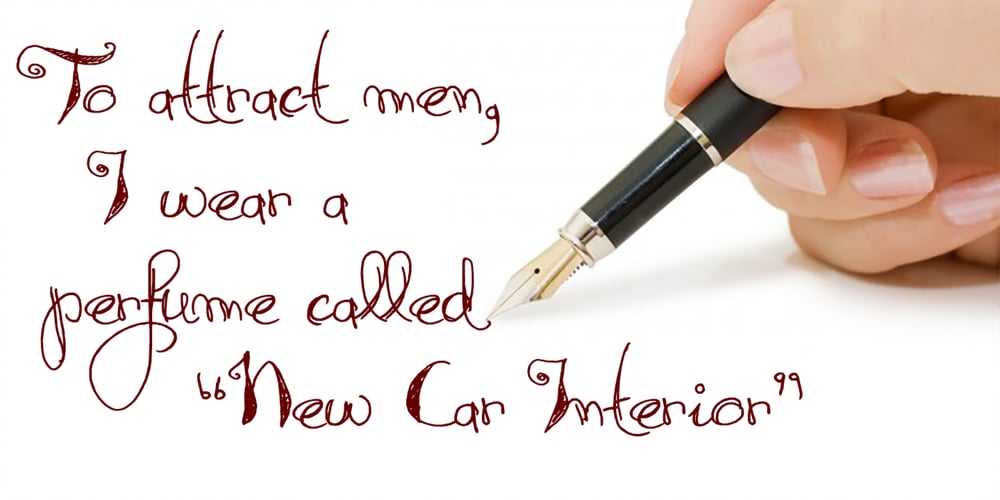
Syphon Spritz Pro Font Family was designed by Roger S. Nelsson, David Kerkhoff and published by CheapProFonts. Syphon Spritz Pro contains 1 styles and family package options. A free flowing and loose handwritten style, with the occasional double lines – and with quite elaborate and decorative initials. Feminine, but sloppy – an interesting combination. I have regularized the stroke thicknesses and modified a couple of the letterforms to make them less ambiguous. Some kerning and spacing completes the workover, together with our extensive language support. ALL fonts from CheapProFonts have very extensive language support: They contain some unusual diacritic letters (some of which are contained in the Latin Extended-B Unicode block) supporting: Cornish, Filipino (Tagalog), Guarani, Luxembourgian, Malagasy, Romanian, Ulithian and Welsh. They also contain all glyphs in the Latin Extended-A Unicode block (which among others cover the Central European and Baltic areas) supporting: Afrikaans, Belarusian (Lacinka), Bosnian, Catalan, Chichewa, Croatian, Czech, Dutch, Esperanto, Greenlandic, Hungarian, Kashubian, Kurdish (Kurmanji), Latvian, Lithuanian, Maltese, Maori, Polish, Saami (Inari), Saami (North), Serbian (latin), Slovak(ian), Slovene, Sorbian (Lower), Sorbian (Upper), Turkish and Turkmen. And they of course contain all the usual “western” glyphs supporting: Albanian, Basque, Breton, Chamorro, Danish, Estonian, Faroese, Finnish, French, Frisian, Galican, German, Icelandic, Indonesian, Irish (Gaelic), Italian, Northern Sotho, Norwegian, Occitan, Portuguese, Rhaeto-Romance, Sami (Lule), Sami (South), Scots (Gaelic), Spanish, Swedish, Tswana, Walloon and Yapese.